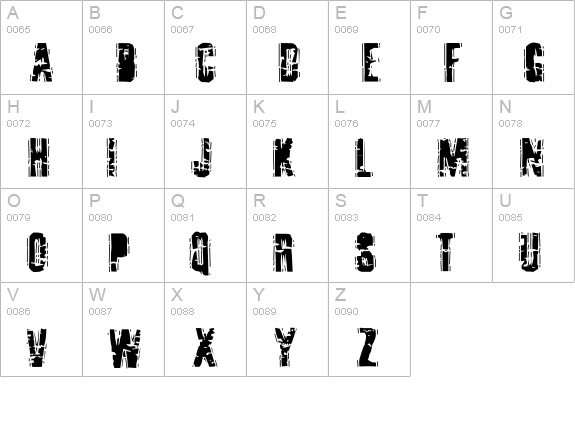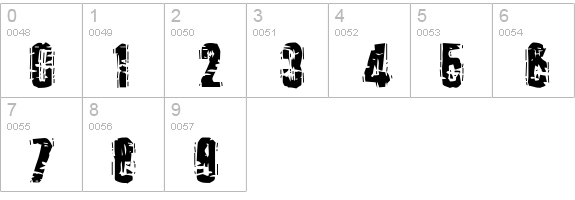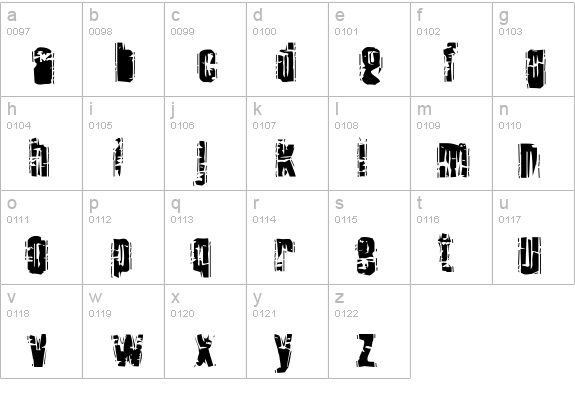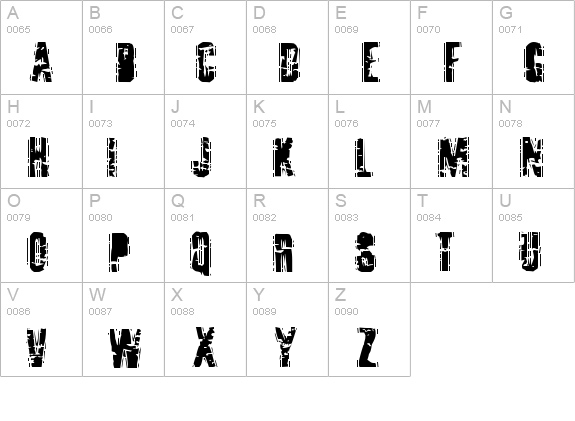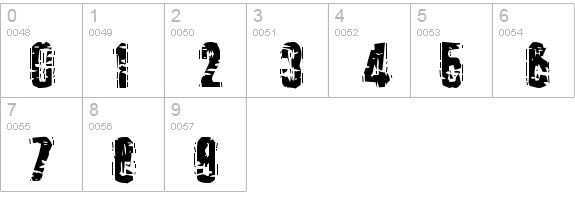
Tooth Ache Font Details
Tooth Ache font is a unique and playful typeface that will add a touch of whimsy to any design project. With its irregular letterforms and quirky details, this font captures the essence of toothaches - simultaneously painful and endearing. The Tooth Ache font is perfect for creating eye-catching headlines, attention-grabbing logos, and fun social media graphics. Its bold, yet friendly appearance makes it ideal for projects that require a balance between professionalism and creativity. This font is not only visually appealing but also highly versatile. It can be used in a wide range of design applications, including posters, packaging, websites, and more. Its distinctive style will make your designs stand out from the crowd and leave a lasting impression on viewers. And the best part? Tooth Ache font is available for free download at FontsMarket.com. You can unleash your creativity without worrying about breaking the bank. Simply head over to FontsMarket.com and grab your copy of Tooth Ache font today. Don't miss out on this opportunity to add a touch of charm and personality to your designs.